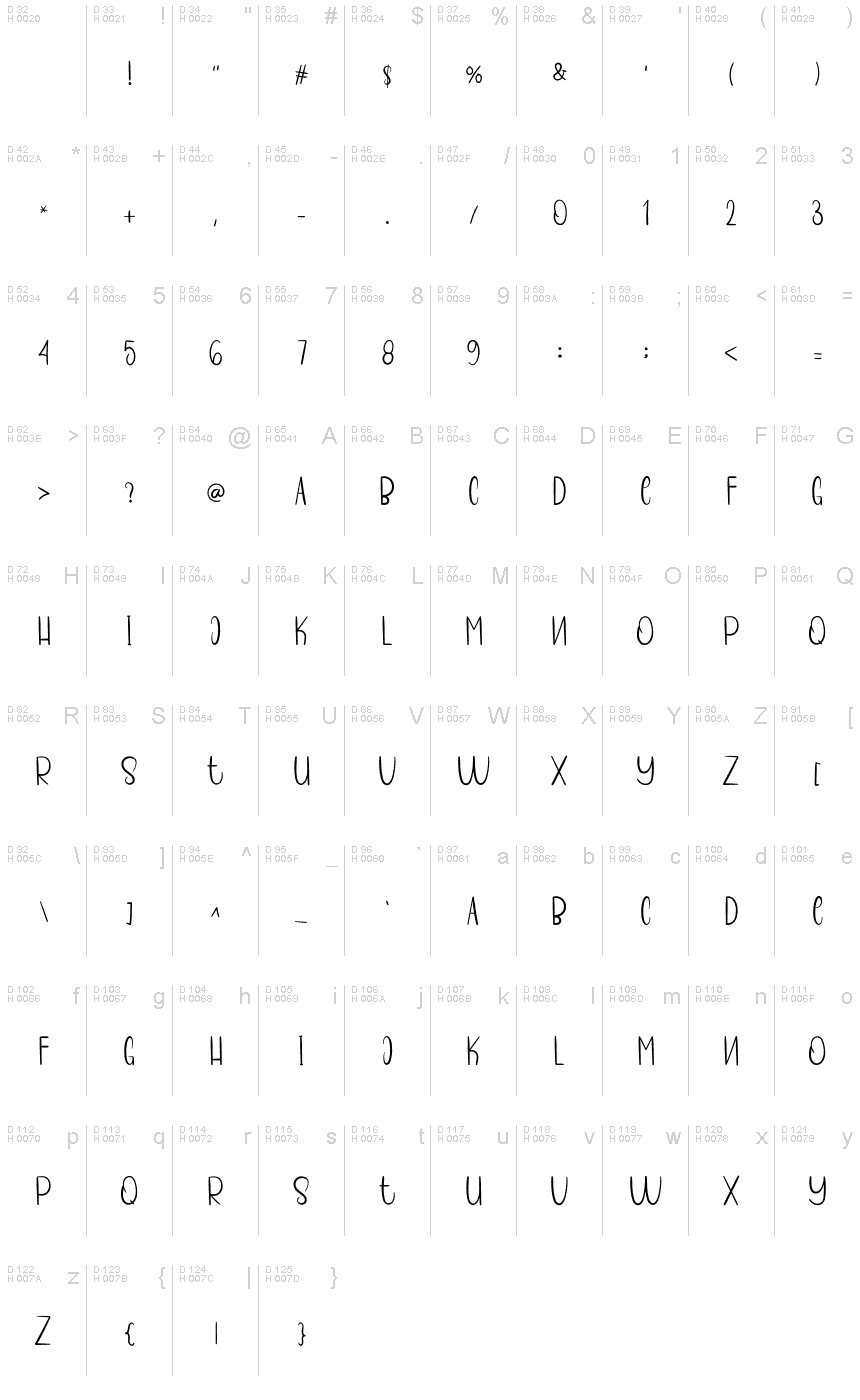
Homepark
Homepark, the handwritten semi-light font by Belina Studio is the perfect choice for projects that require a personal touch. Its condensed width makes it ideal for headlines and titles while its semi-light weight adds a subtle sophistication to any design. Use Homepark for branding, packaging, social media graphics, or even wedding invitations and thank you cards. With its unique style and versatility, Homepark is sure to bring a warm and inviting feel to any project. Elevate your designs with the charm of Homepark - the perfect font choice for all your creative needs.
the latest style letters are perfect for wall displays, wedding invitations, social media post logos, advertisements, product packaging, product designs, labels, photography, watermarks, invitations, stationery, and any project that requires taste handwriting.